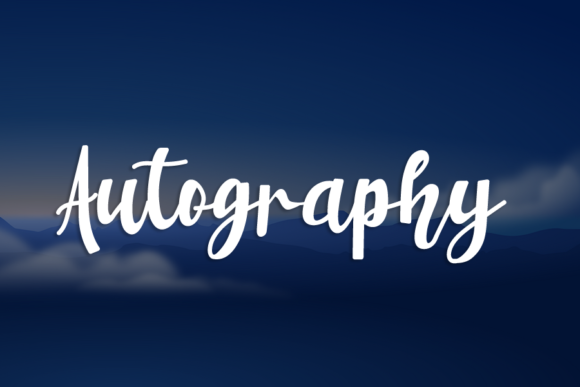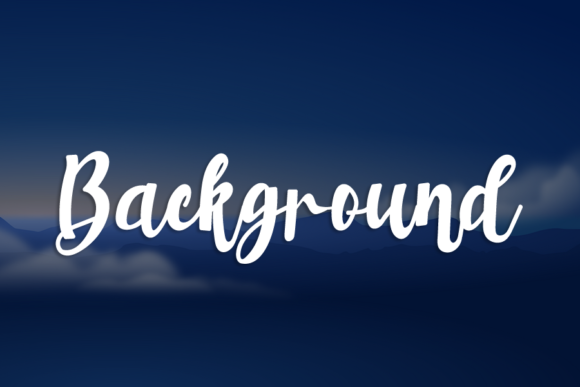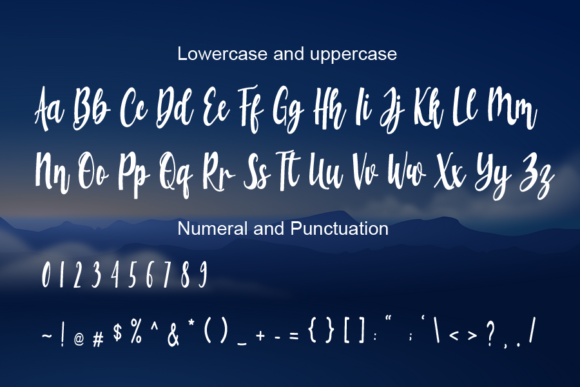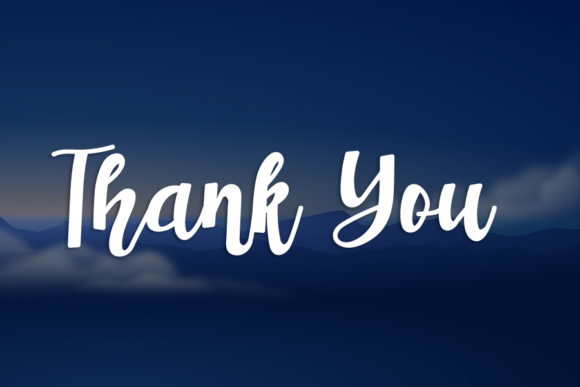
Amanda Font: The Ultimate Romantic and Sweet Handwritten Font
Are you looking for a font that can add a touch of luxury and romance to your designs? Look no further than Amanda Font! This beautiful handwritten font is perfect for designers and crafters who want to create stunning projects that exude elegance and sophistication. In this article, we’ll dive into the features and benefits of Amanda Font, and explore how it can elevate your designs to the next level.
What is Amanda Font?
Amanda Font is a romantic and sweet handwritten font that is designed to make your designs stand out. Its unique characters seem to dance along the baseline, creating a sense of movement and fluidity that is hard to resist. With its elegant and refined aesthetic, Amanda Font is perfect for a wide range of design projects, from wedding invitations and branding materials to packaging and digital products.
Key Features of Amanda Font
- Romantic and Sweet: Amanda Font has a distinctly romantic and sweet feel to it, making it perfect for designs that require a touch of elegance and sophistication.
- Handwritten Characters: The font features handwritten characters that seem to dance along the baseline, creating a sense of movement and fluidity.
- Luxury Spark: Amanda Font is designed to add a luxury spark to any design or project, making it perfect for high-end branding and marketing materials.
- Versatile: The font is versatile and can be used for a wide range of design projects, from print to digital.
Benefits of Using Amanda Font
So why should you choose Amanda Font for your design projects? Here are just a few benefits of using this beautiful font:
- Elegance and Sophistication: Amanda Font adds a touch of elegance and sophistication to any design, making it perfect for high-end branding and marketing materials.
- Unique and Eye-Catching: The font’s unique characters and handwritten feel make it stand out from more traditional fonts, ensuring that your designs grab attention.
- Easy to Read: Despite its elegant feel, Amanda Font is easy to read, making it perfect for body text and other applications where readability is key.
- Customizable: As a digital font, Amanda Font can be easily customized to suit your design needs, from adjusting the size and color to adding effects and textures.
How to Use Amanda Font in Your Designs
So how can you use Amanda Font in your designs? Here are a few ideas to get you started:
- Wedding Invitations: Amanda Font is perfect for wedding invitations, adding a touch of romance and elegance to your designs.
- Branding Materials: Use Amanda Font to create stunning branding materials, from logos and business cards to letterheads and packaging.
- Digital Products: The font is also perfect for digital products, such as ebooks, courses, and software.
- Packaging: Add a touch of luxury to your packaging designs with Amanda Font, perfect for high-end products and promotions.
In conclusion, Amanda Font is a beautiful and versatile handwritten font that can add a touch of luxury and romance to any design project. With its elegant and refined aesthetic, unique characters, and ease of use, it’s perfect for designers and crafters who want to create stunning designs that stand out. Whether you’re working on a wedding invitation, branding materials, or digital products, Amanda Font is sure to elevate your designs to the next level.